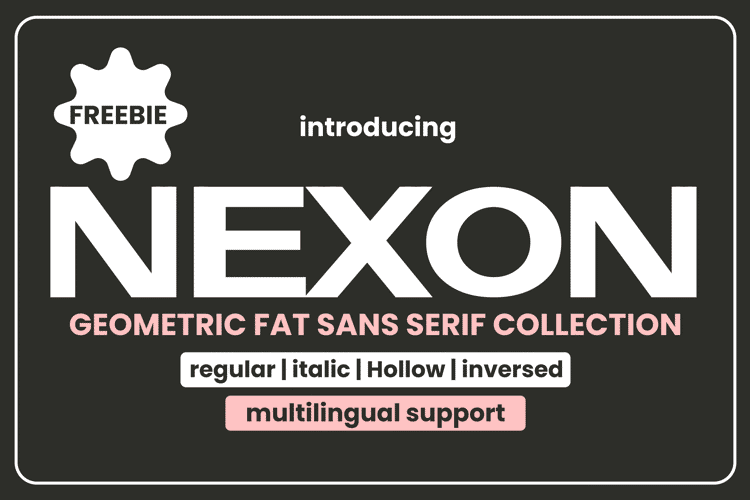
Nexon Font
4 font family styles
Hollow Regular Style
Inverse Regular Style
🎨 Font Name: NEXON by Minimalist Art Studio
🎨 Font description: Nexon is a geometric fat sans serif collection with multilingual support—perfect for tech branding, bold packaging, and futuristic editorial design.